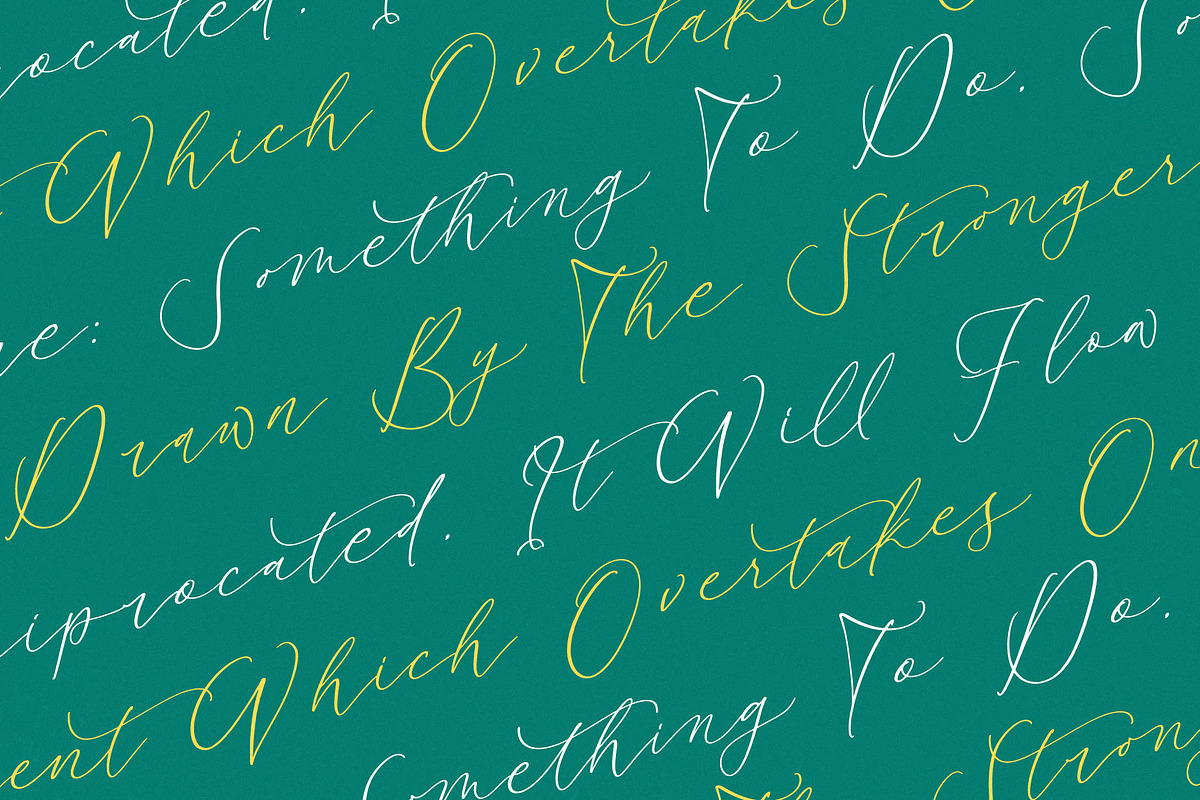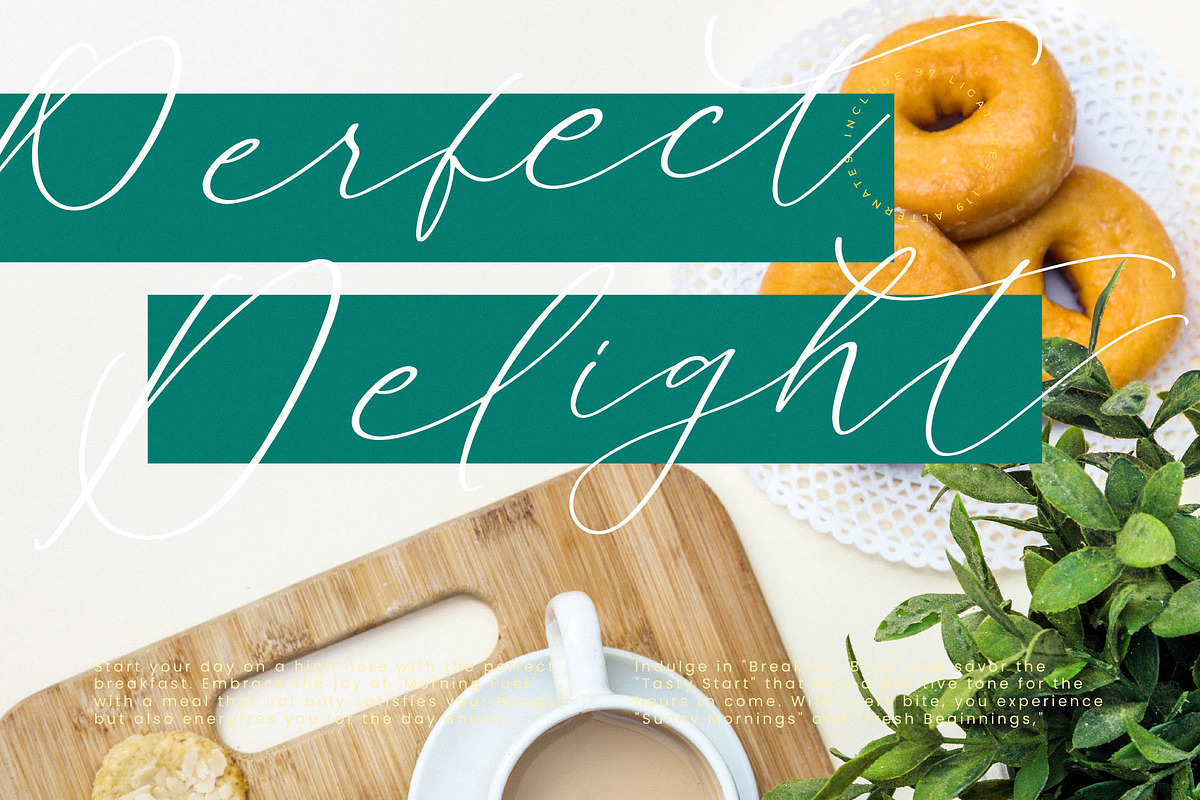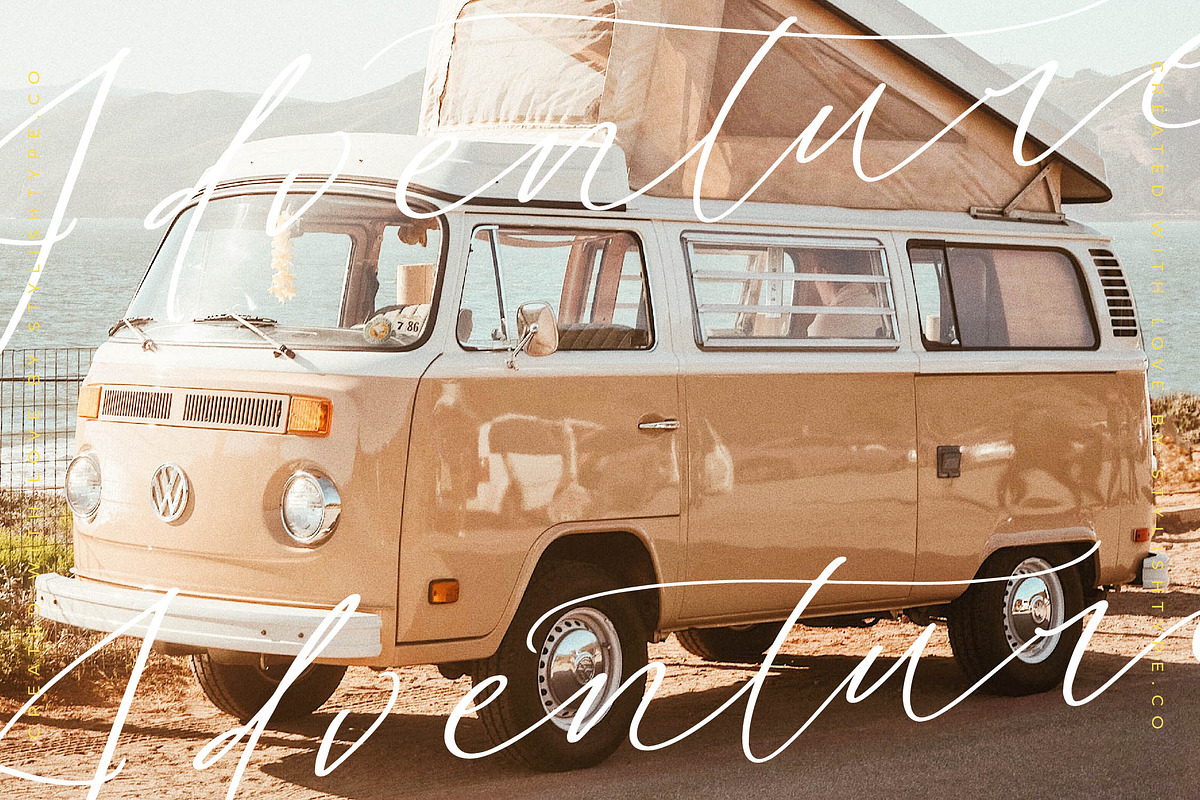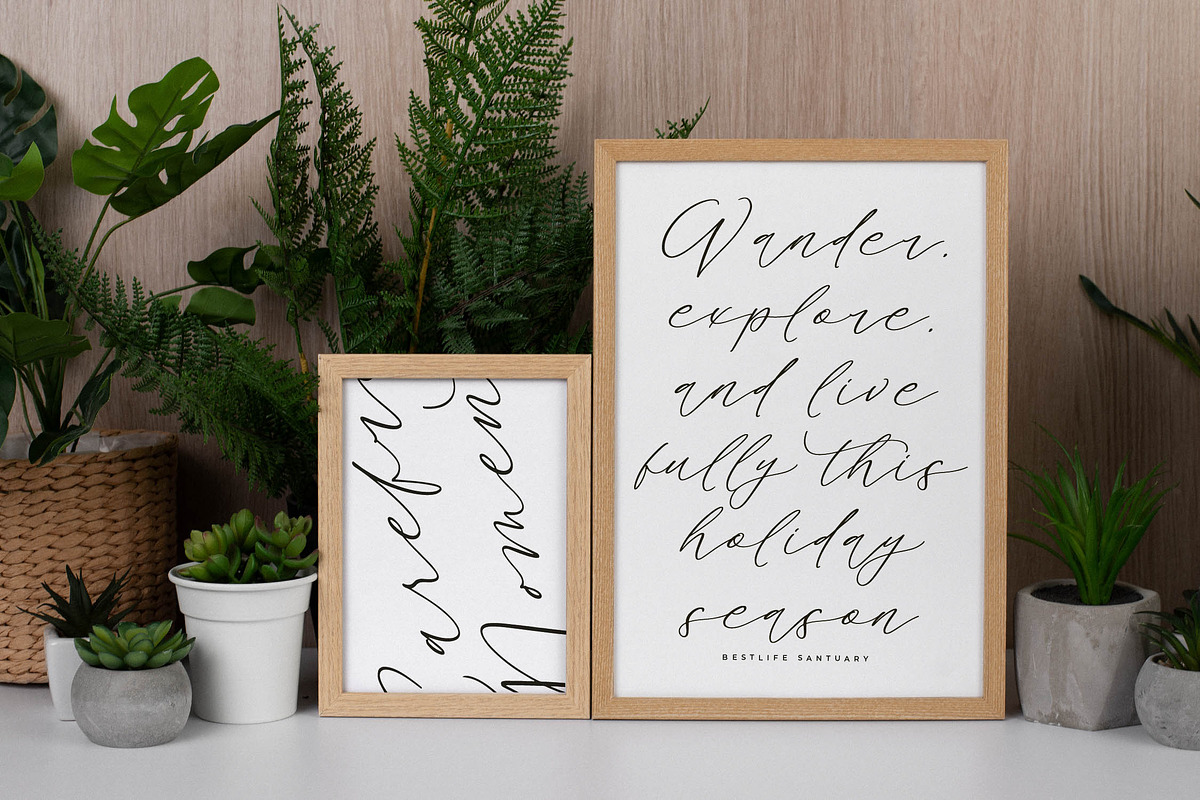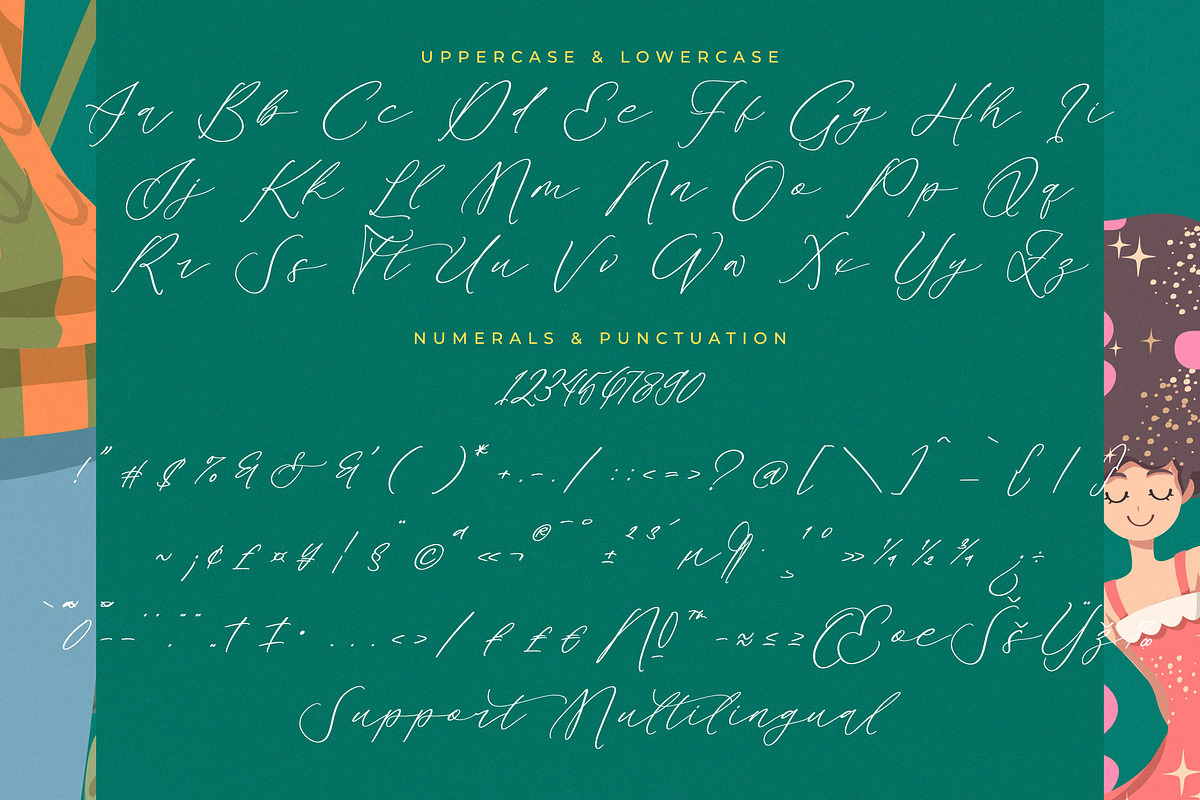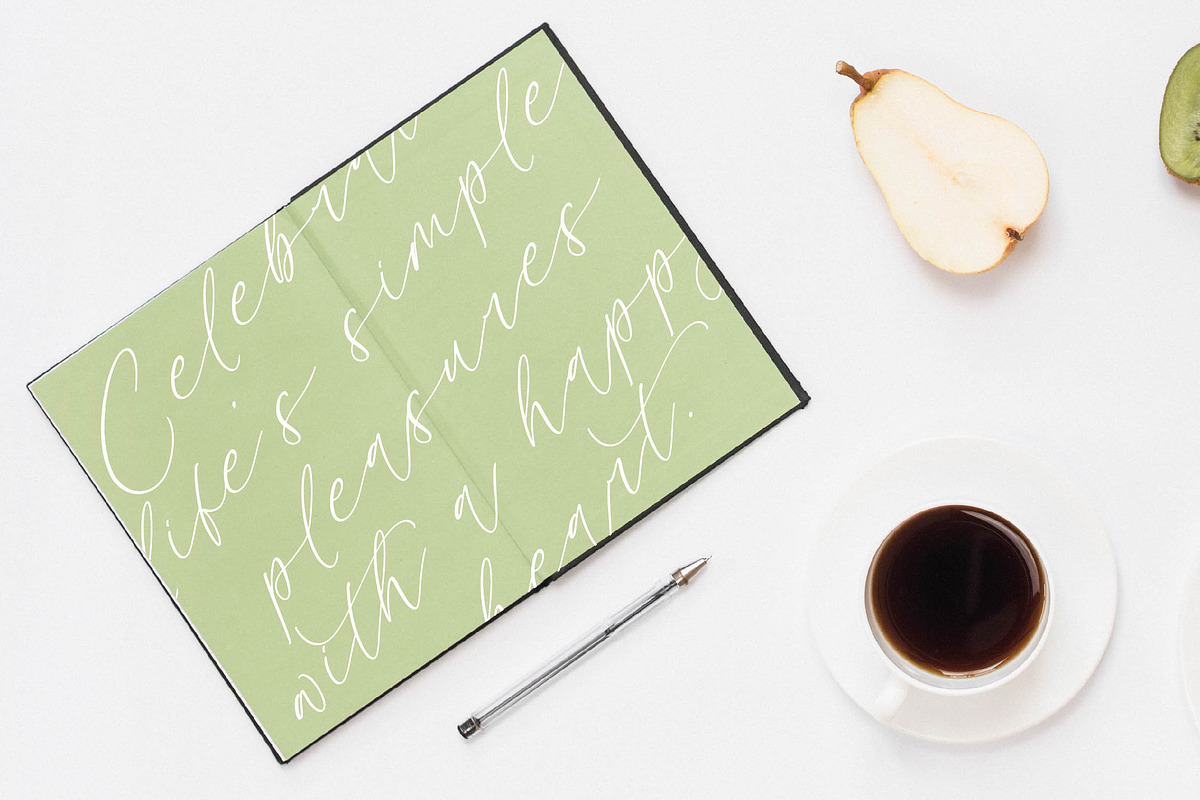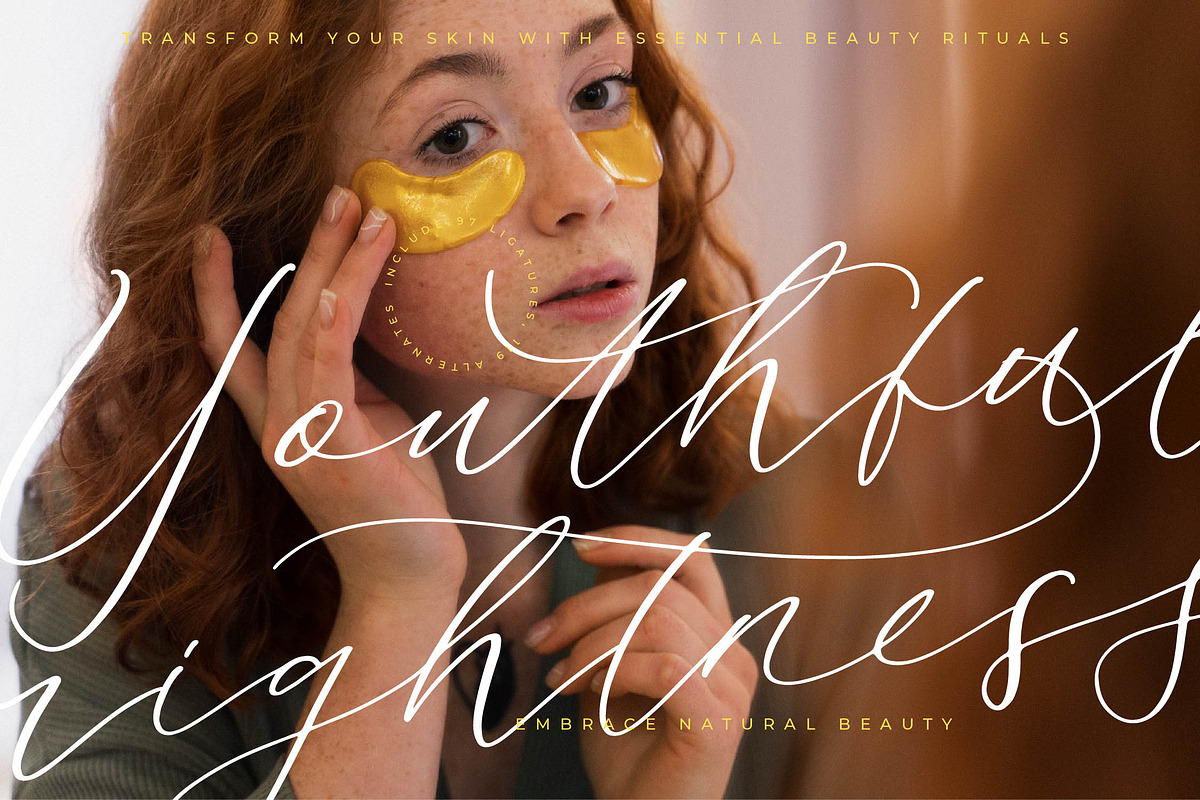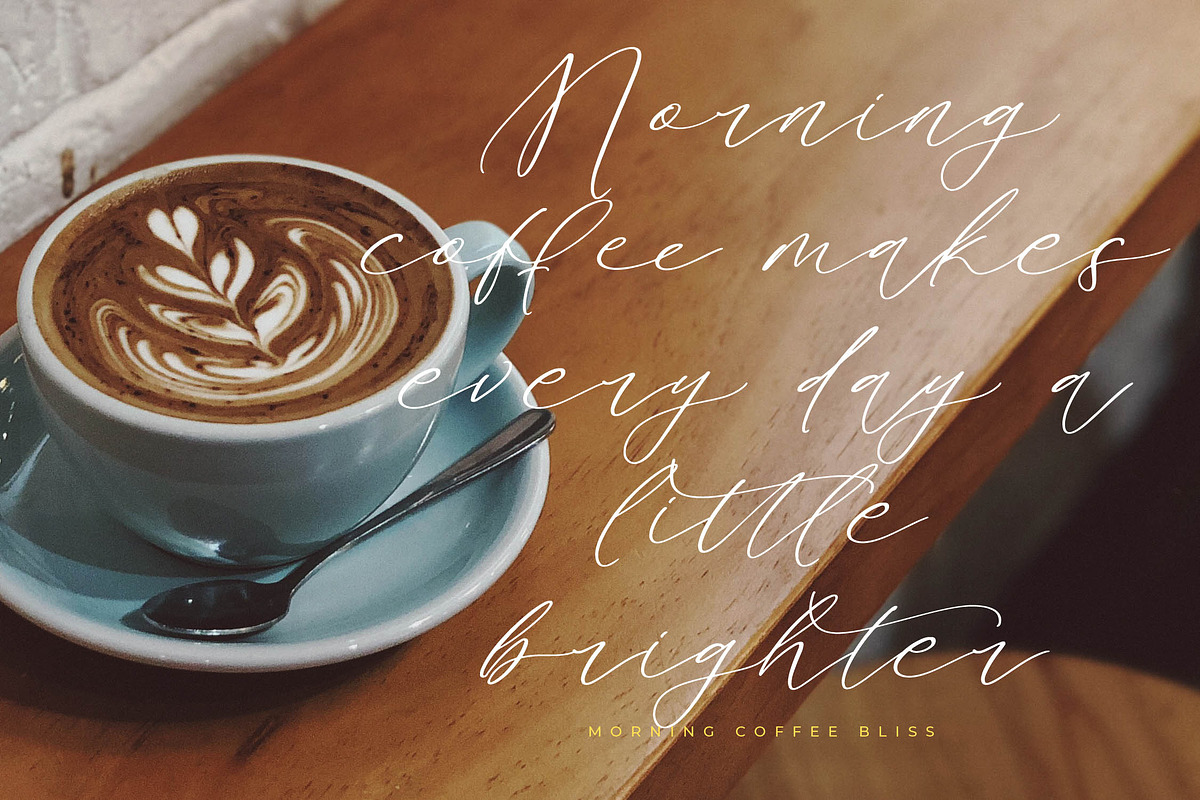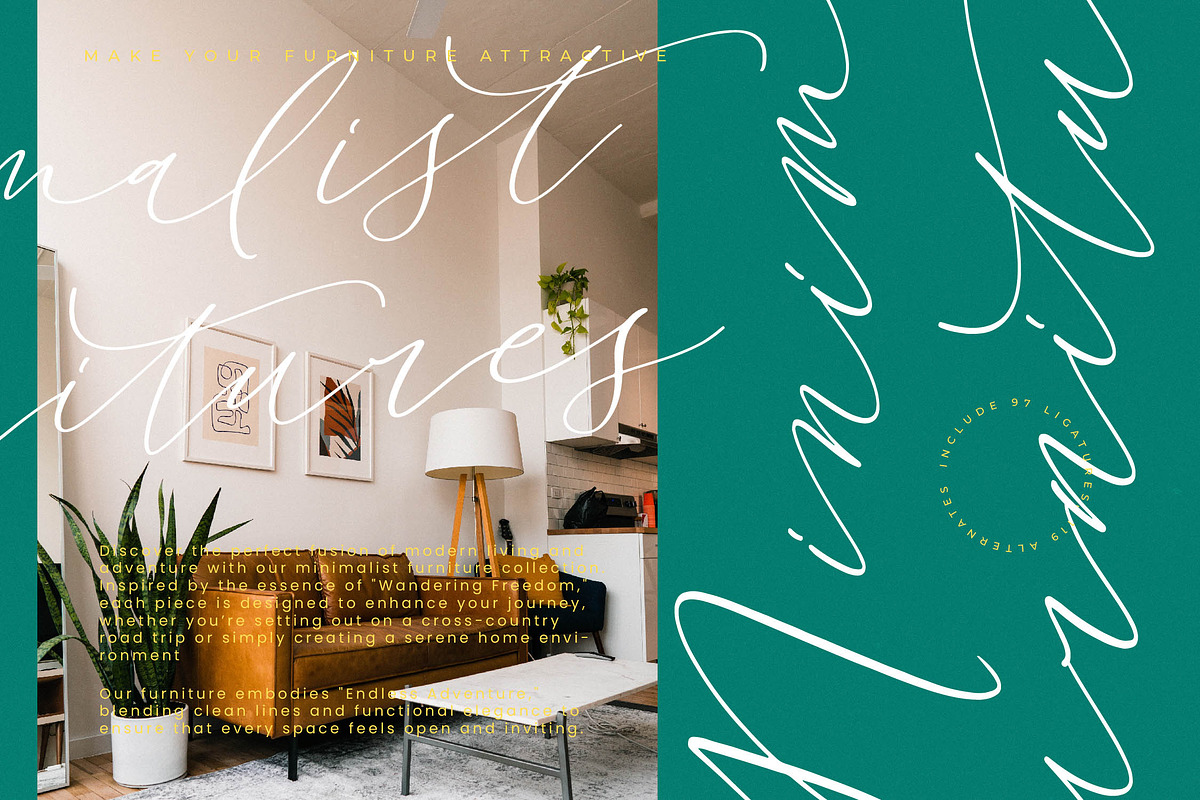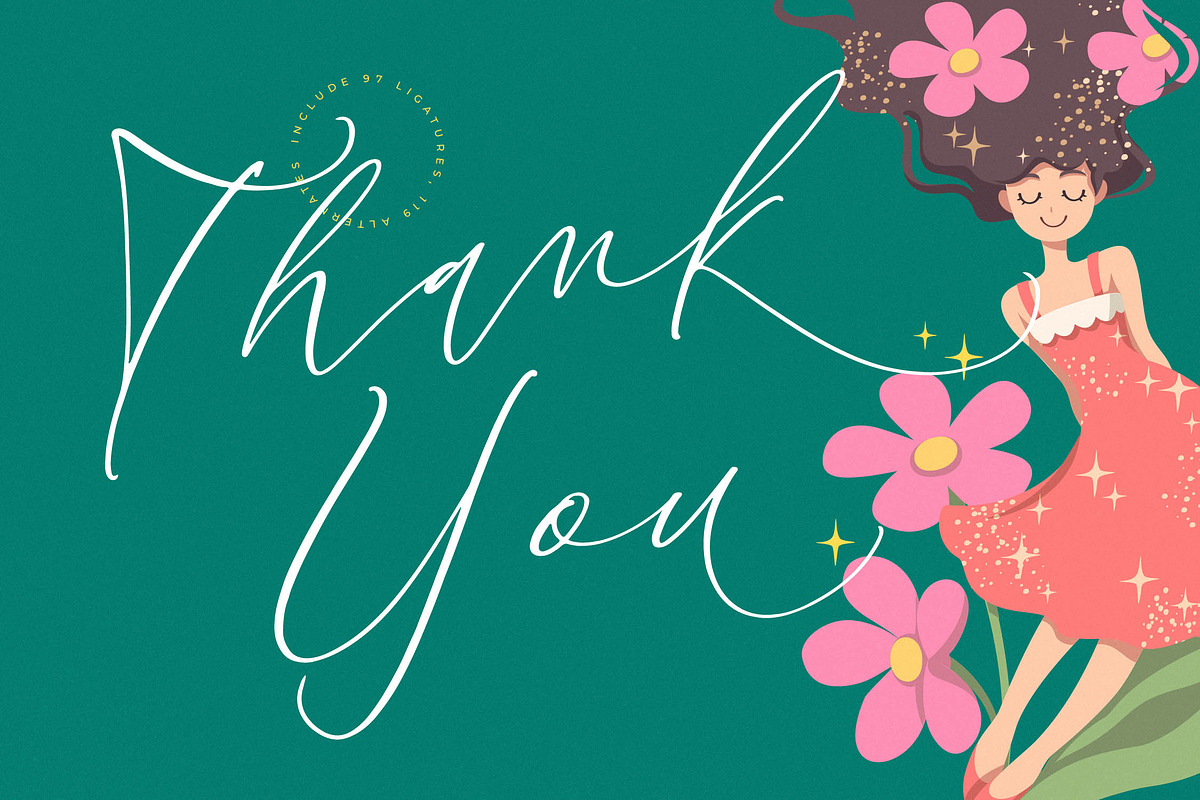
Bestlife Santuary Beautiful Script
Bestlife Santuary - Beautiful Script Font , from Stylishtype.Co , Suitable for any projects such as: logos, branding projects, homeware designs, product packaging, mugs, quotes, posters, shopping bags, t-shirts, book covers, name card, invitation cards, greeting cards, label, photography, watermark, special events, and all your other luxury and beautiful projects that need a Luxury Script taste.
- 97 Ligature 119 Alternates & Swashes